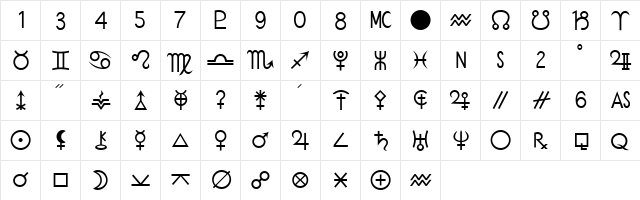
StarLightDemi Medium
Design Context for StarLightDemi Typeface
StarLightDemi takes a measured approach to typography — its balanced proportions and neutral character make it a reliable workhorse for both digital and print work. The delicate stroke weight brings airiness and refinement to layouts.